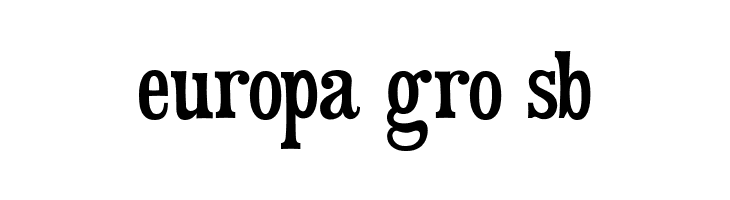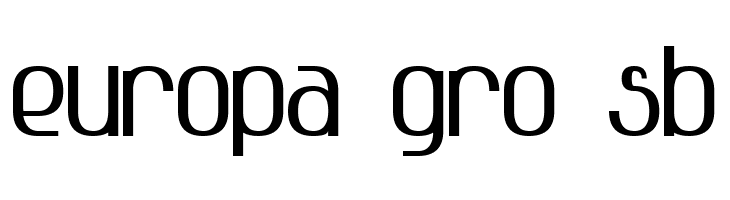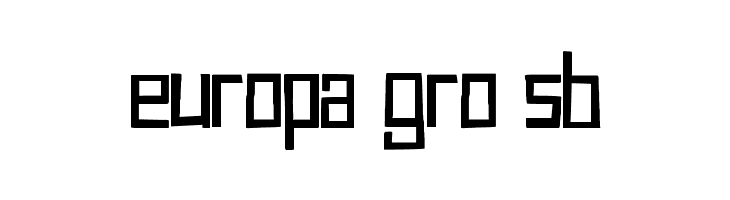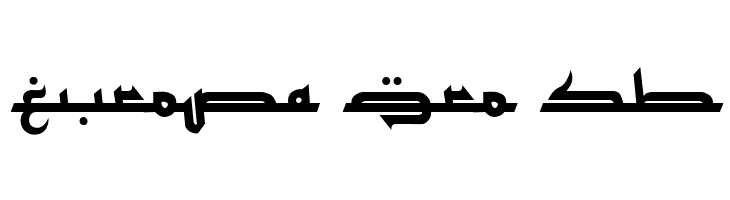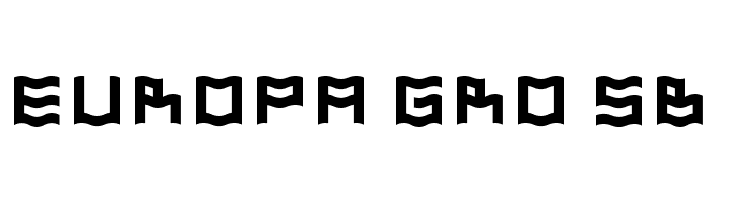
A bold serif font with a classic yet modern style, featuring strong serifs and consistent strokes.
A bold, modern sans-serif font with clean, geometric lines.
A bold, geometric font with a digital, futuristic style.
A bold, angular font with geometric shapes and a modern calligraphic influence.
A bold, modern font with wave-like patterns and geometric shapes, ideal for creative projects.